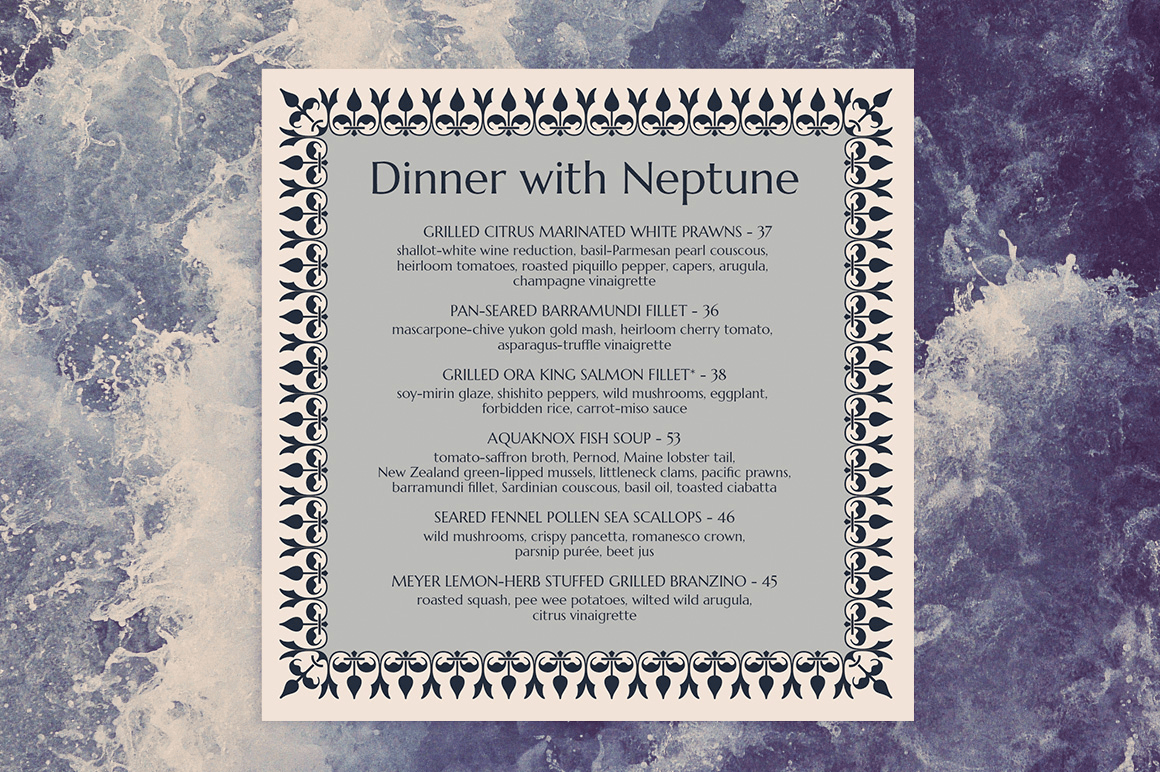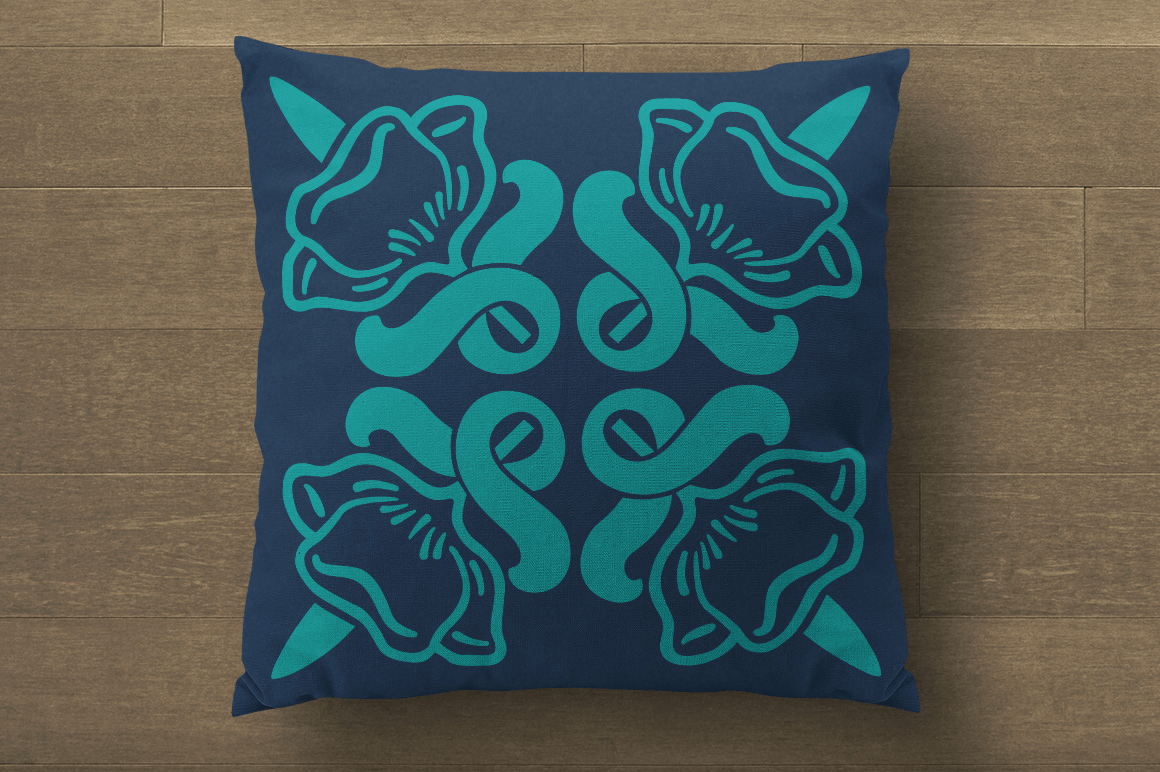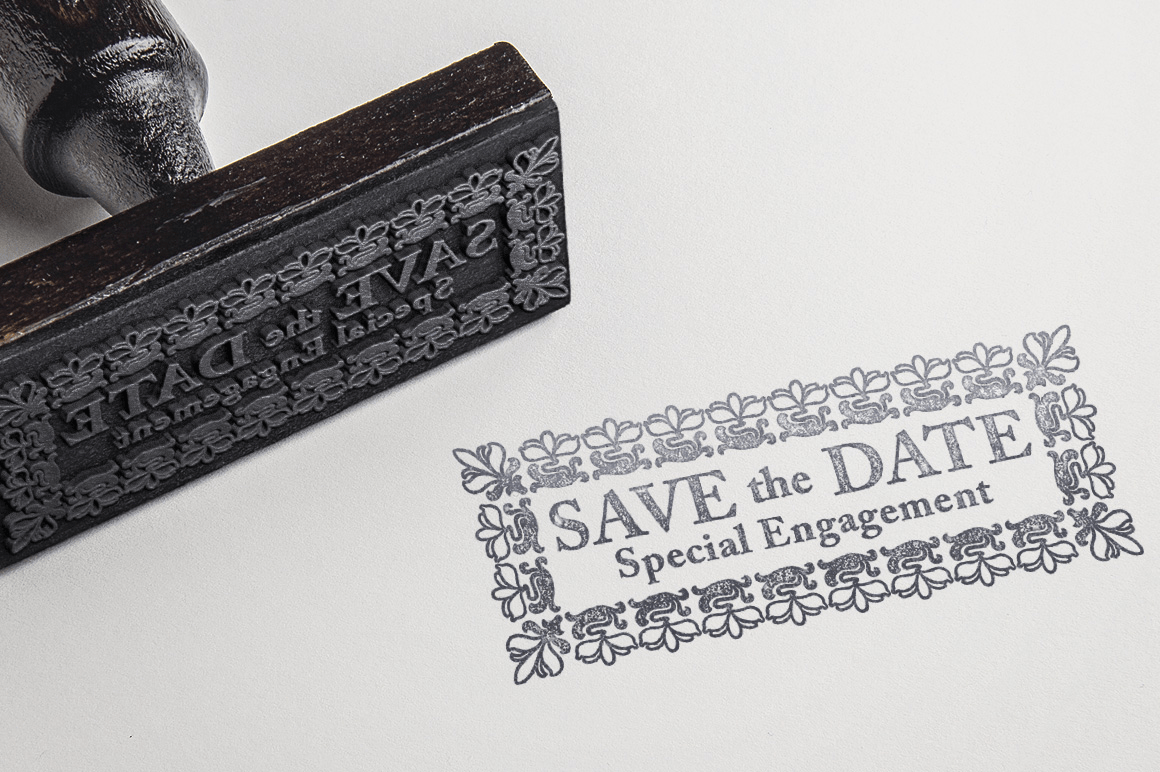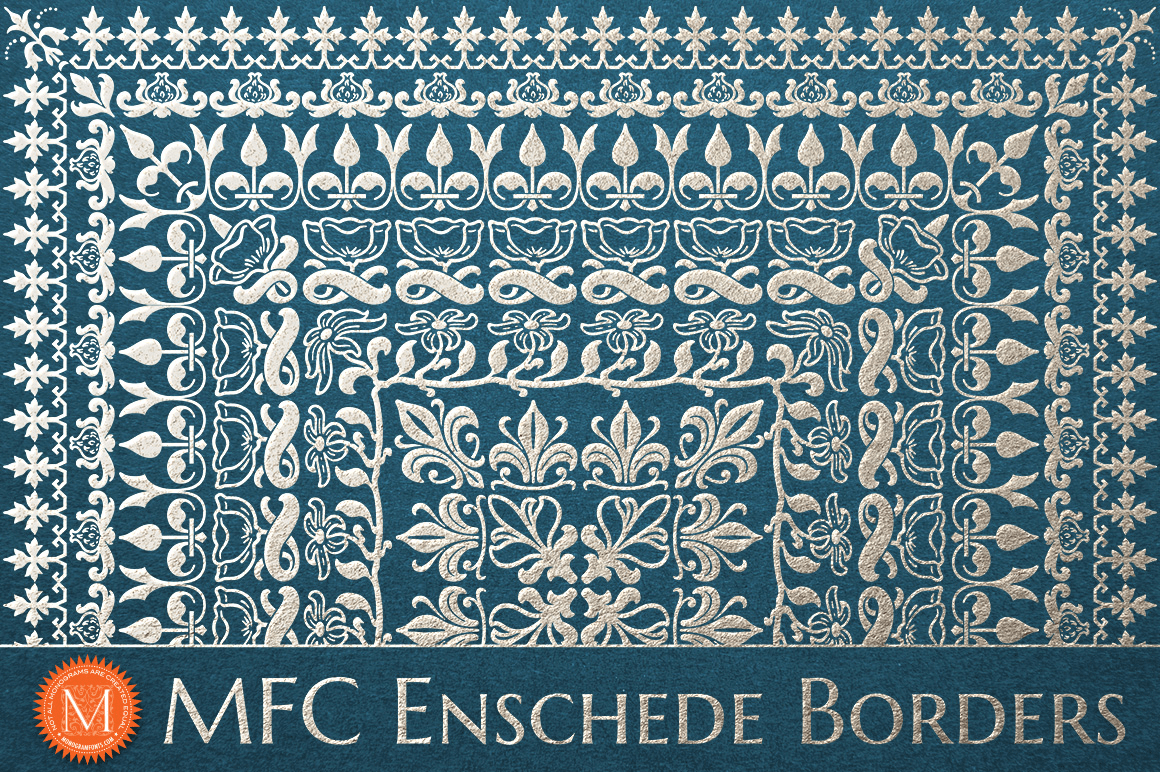
The inspiration source for MFC Enschede Borders is a collection of floral border treatments from the 1904 ?Ornamenten Hoofdlijsten en Sluitstukken? by Joh. Ensched